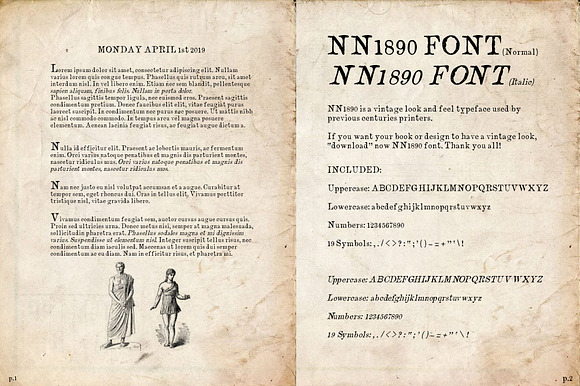
NN1890 Vintage font
- It is a "normal & Italic" typeface with all capital, lowercase letters, numbers and 19 symbols.
- NN1890 Regular
- NN1890 Italic